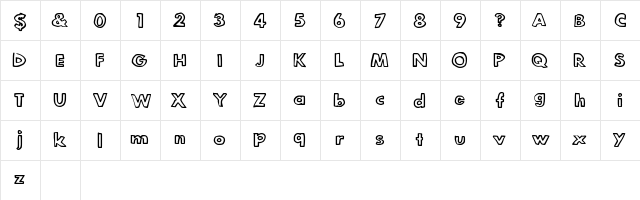
LegitOutline Regular Font Preview
LegitOutline Regular
LegitOutline Regular Font Details
| Foundry | Xerographer Fonts |
| Designer | Max Infeld |
Design Context for LegitOutline Typeface
LegitOutline brings ornamental detail and strong personality to headlines and identities, where visual impact matters more than quiet functionality.
Font Pairing: Pair with a clean neutral sans-serif for body copy to let LegitOutline's character lead without overwhelming the composition.
Pro Tip: Treat LegitOutline as the centrepiece of your typographic hierarchy. One strong heading set in a decorative face can carry an entire layout.